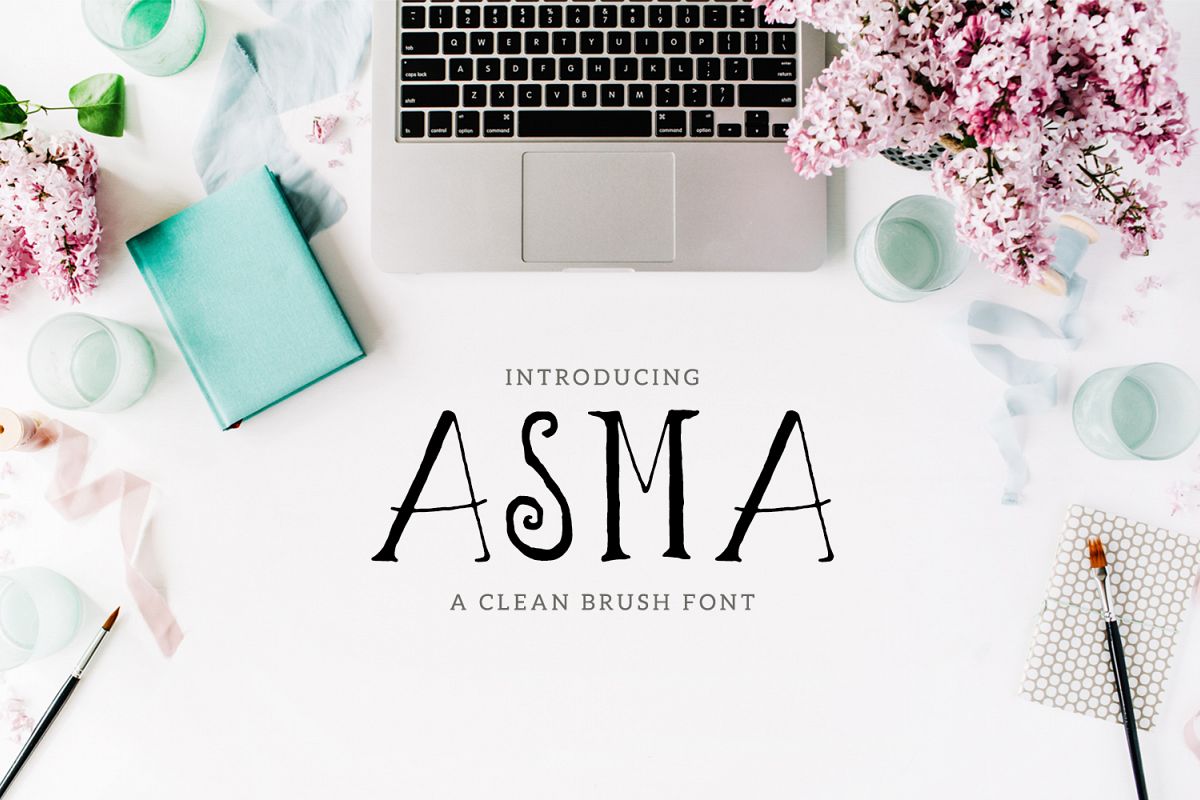
Asma Brush Font
Asma Script Typeface is a beautiful handwritten font which contains 3 weight and that is specifically designed for minimal projects. It looks impressive for branding, websites, clean designs, logos, headlines, banners and templates etc. It is in uppercase style only.Included Features:
• Regular, Italic and Outline Weights
• Extras: Uppercase Letters and Numbers